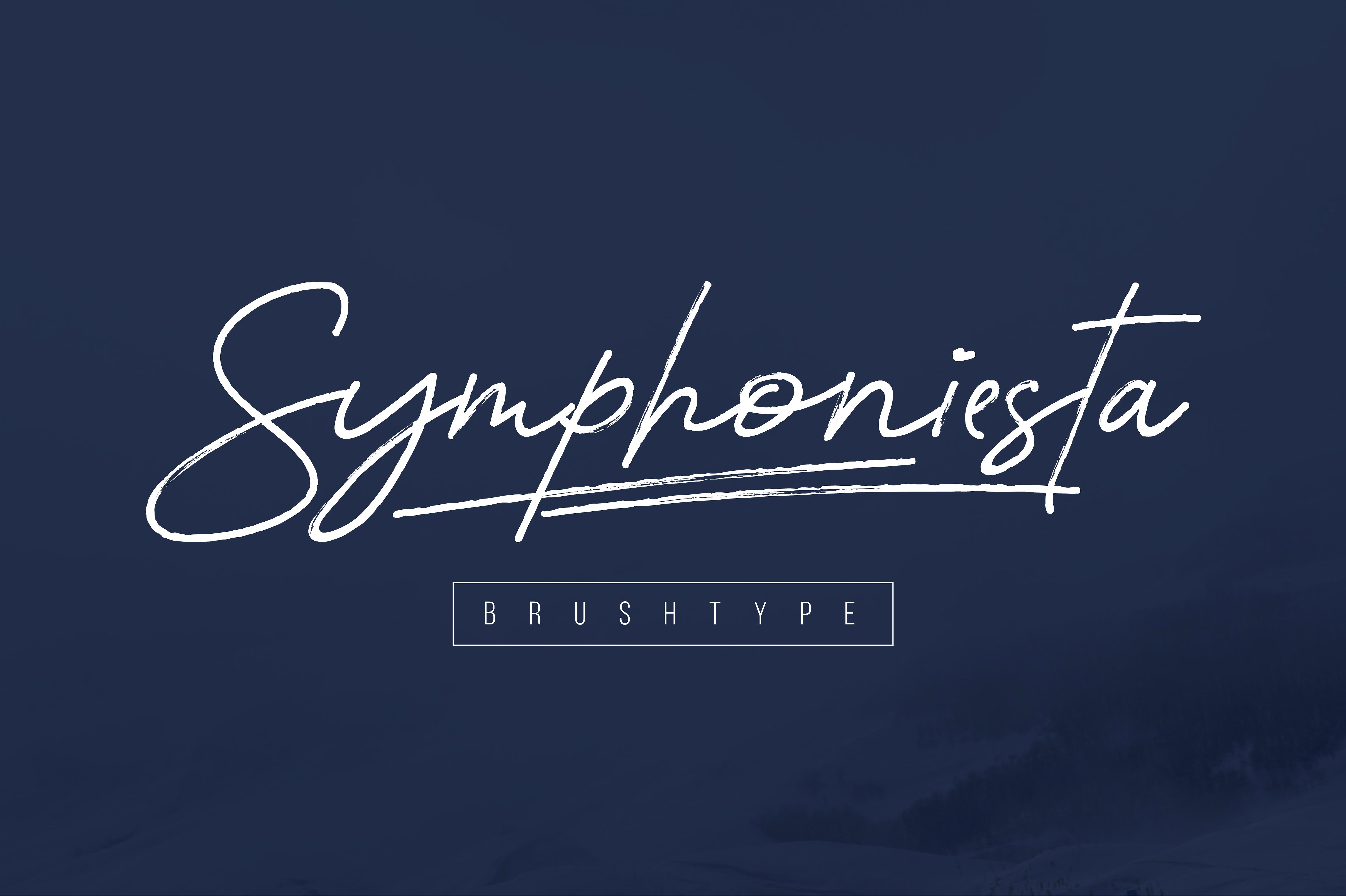
Symphoniesta
Symphoniesta Script Font
Symphoniesta Brushtype is a script font that helps you to create logos, signatures, and all things of course. Christmas, autumn, and winter is the inspiration.